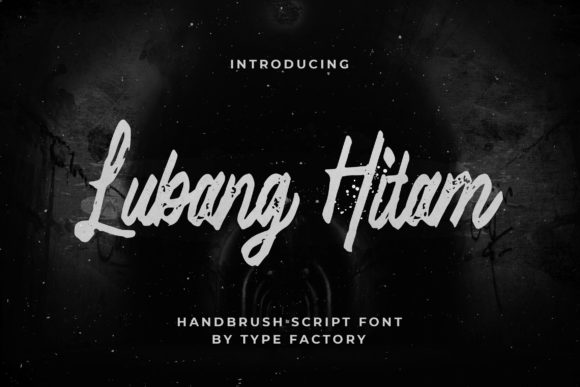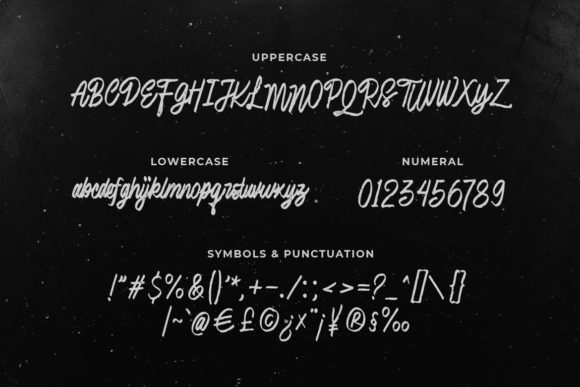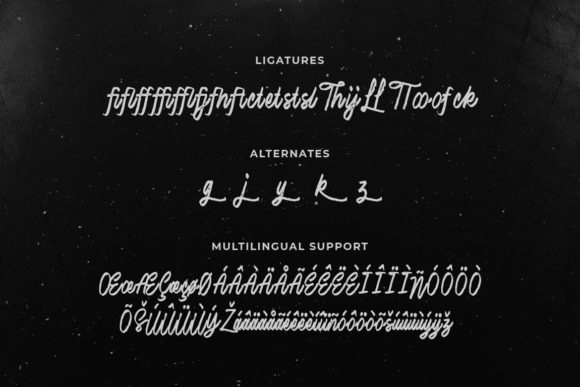
Lubang Hitam Font
Lubang Hitam is a lovely and delicate script font that exudes elegance and class. This font was particularly crafted for those who need a beautiful and well-balanced look to their designs.